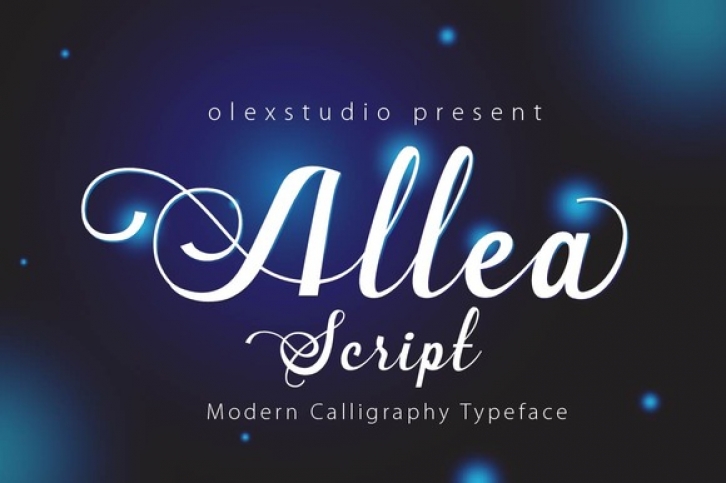
Allea script is a lovely, modern calligraphy typeface which will give your design a classic and elegant touch.It can be used for various purposes such as headings, logos, invitations, t-shirt designs, greeting cards, posters, labels, book covers, brochures and any other design you want to give a elegant feeling.